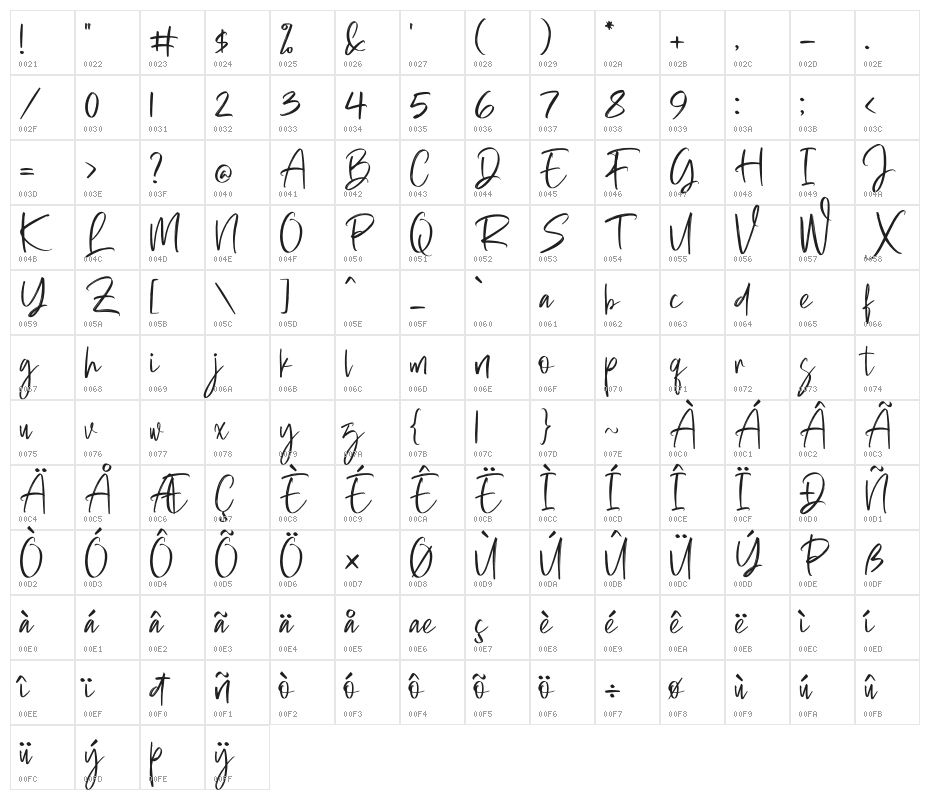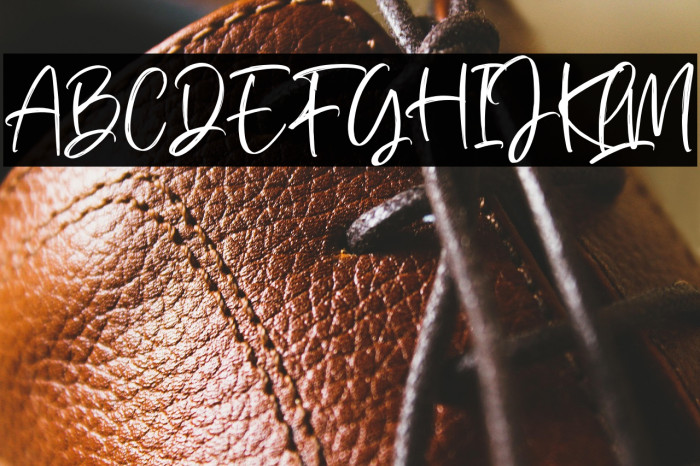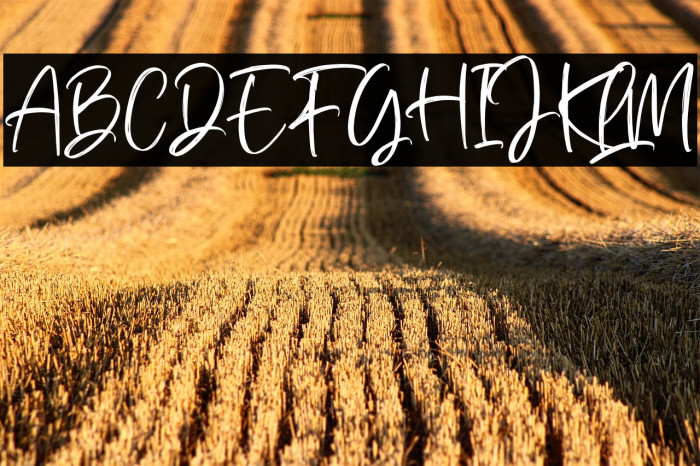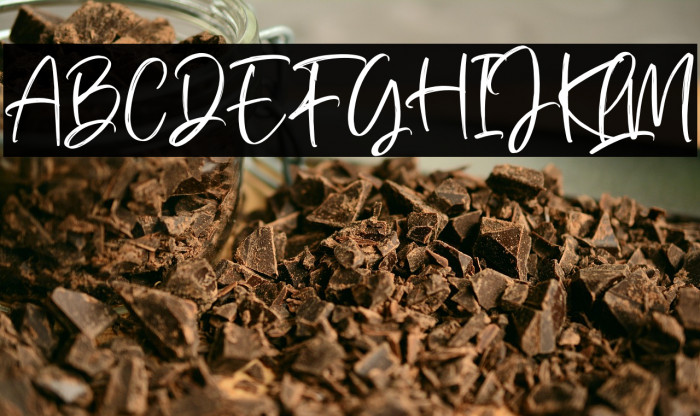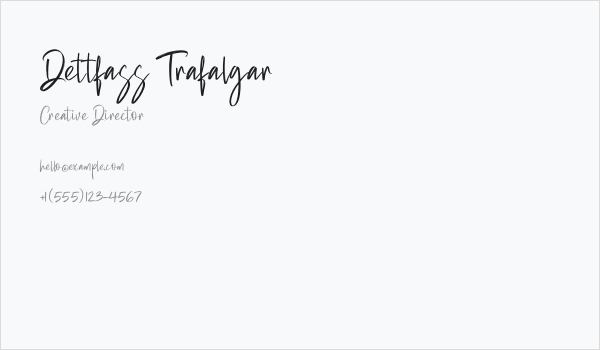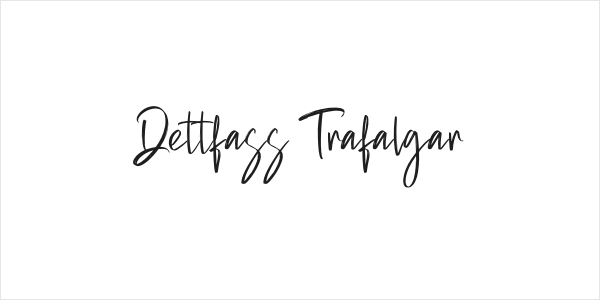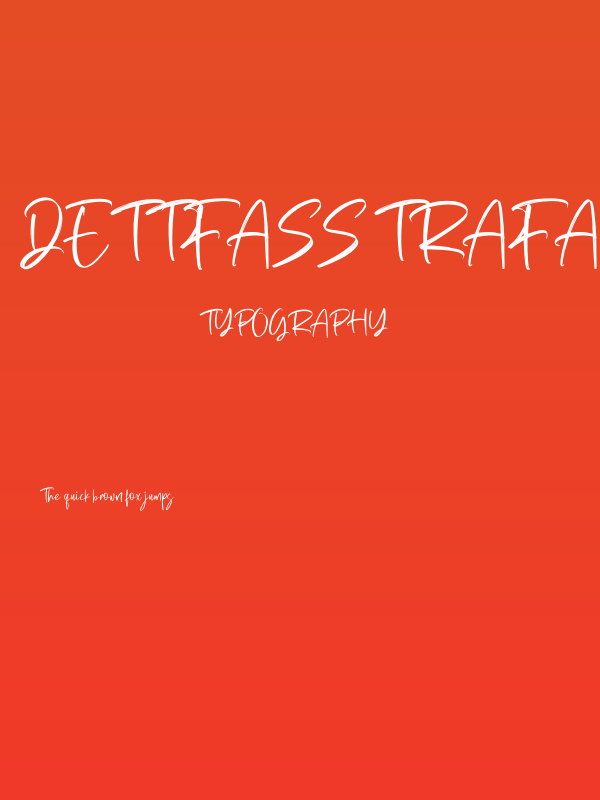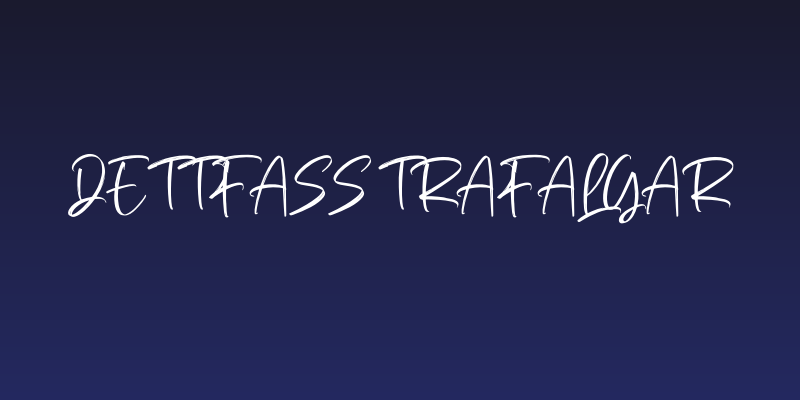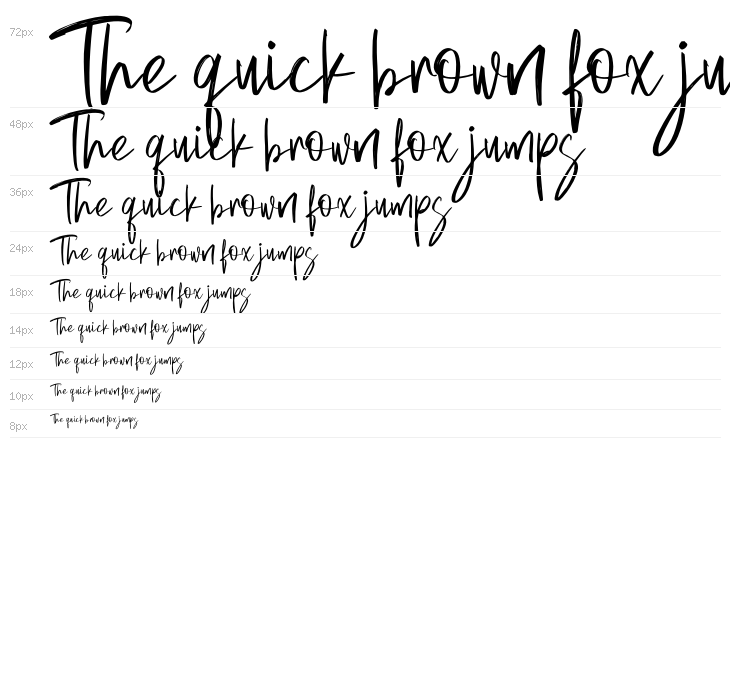
Dettfass Trafalgar Font
Dettfass Trafalgar Description
This font exudes a lively and dynamic handwritten style, characterized by its fluid and expressive strokes. The letters are crafted with a natural, free-flowing motion, giving it an authentic and personal touch. The uppercase and lowercase letters maintain a consistent style, with a playful yet sophisticated appearance. Numbers and special characters are designed to match the overall aesthetic, ensuring a cohesive look across all text elements. The font's energetic and informal nature makes it ideal for projects that require a personal and approachable feel.
| Proposed Projects | Ideal for personal branding, greeting cards, invitations, and creative projects that require a personal touch. |